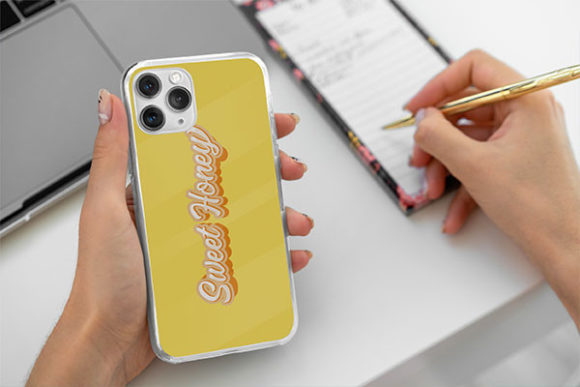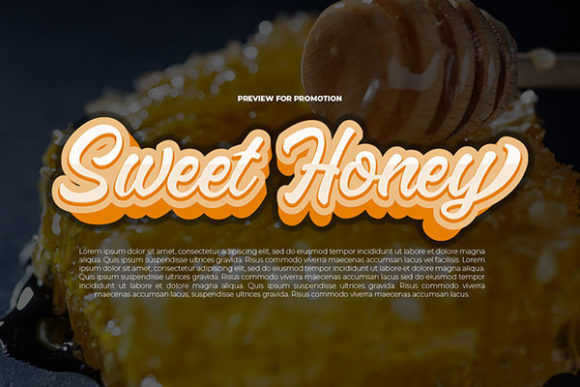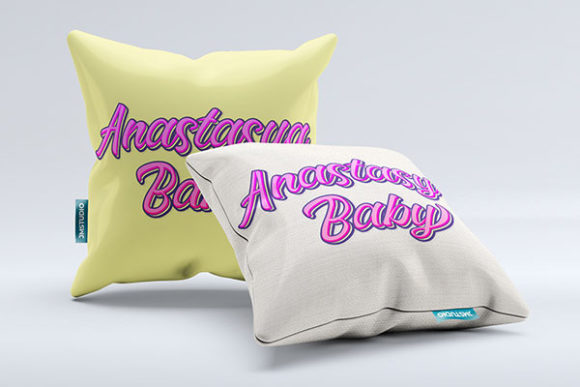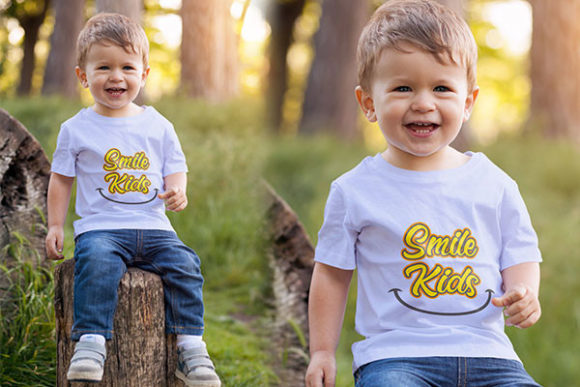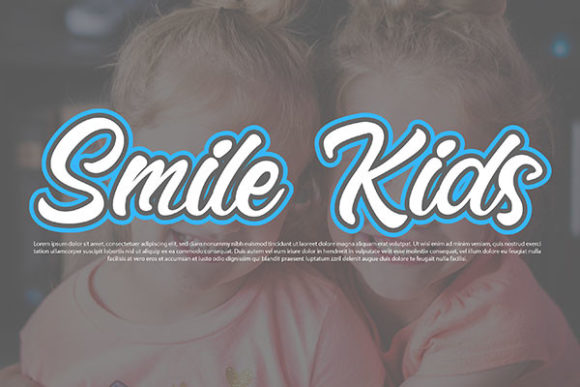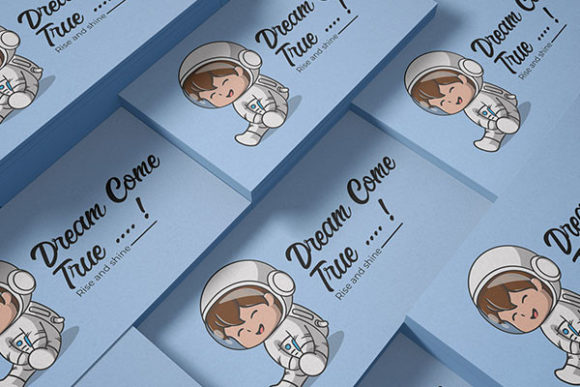
Crazy Wish Font: The Perfect Choice for Joyful Designs
Are you looking for a font that can add a playful and cheerful touch to your designs? Look no further than the Crazy Wish font! This cool, friendly, and informal handwritten font is perfect for creating happy-related designs, great lettering logos, children’s games, and more.
What is Crazy Wish Font?
Crazy Wish is a unique and charming font that is sure to bring a smile to anyone’s face. Its handwritten style gives it a personal and approachable feel, making it perfect for designs that require a friendly and informal touch. The font is highly legible and versatile, making it suitable for a wide range of design projects.
Key Features of Crazy Wish Font
- Handwritten style: Crazy Wish font has a beautiful handwritten style that gives it a personal and unique touch.
- Highly legible: The font is highly legible, making it easy to read and understand.
- Versatile: Crazy Wish font is suitable for a wide range of design projects, from happy-related designs to children’s games.
- Informal and friendly: The font has an informal and friendly feel, making it perfect for designs that require a personal touch.
Use Cases for Crazy Wish Font
Crazy Wish font is perfect for a variety of design projects, including:
- Happy-related designs: Use Crazy Wish font to create designs that require a happy and cheerful touch, such as greeting cards, posters, and social media graphics.
- Great lettering logos: The font is perfect for creating great lettering logos that require a friendly and informal touch.
- Children’s games: Crazy Wish font is suitable for children’s games, such as puzzles, quizzes, and activity sheets.
- Personal projects: Use the font for personal projects, such as scrapbooking, journaling, and crafting.
Why Choose Crazy Wish Font?
There are many reasons why you should choose Crazy Wish font for your design projects. Here are a few:
- Unique and charming: The font has a unique and charming style that is sure to stand out.
- Highly versatile: Crazy Wish font is suitable for a wide range of design projects.
- Easy to use: The font is highly legible and easy to use, making it perfect for designers of all levels.
Tips for Using Crazy Wish Font
Here are a few tips for using Crazy Wish font:
- Use it for headlines: The font is perfect for headlines and titles, where you want to grab the attention of your audience.
- Pair it with other fonts: Crazy Wish font pairs well with other fonts, such as sans-serif fonts and script fonts.
- Experiment with colors: The font looks great in a variety of colors, so don’t be afraid to experiment and find the perfect color for your design.
In conclusion, Crazy Wish font is a cool, friendly, and informal handwritten font that is perfect for designs that require a joyful touch. Its unique and charming style, highly legible and versatile nature, make it suitable for a wide range of design projects. Whether you’re a designer or a crafter, Crazy Wish font is a great choice for your next project.